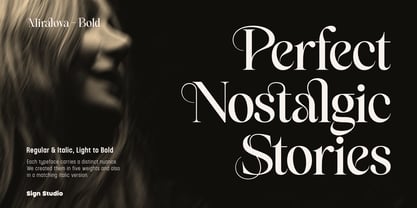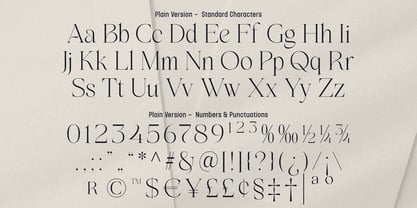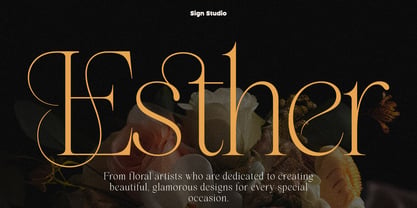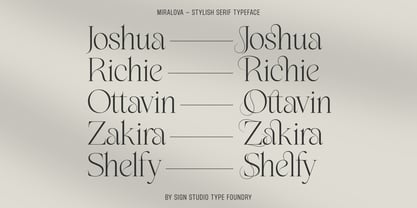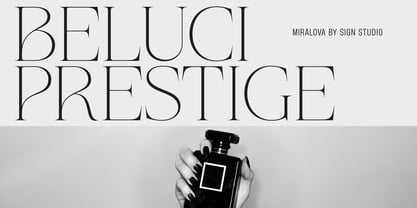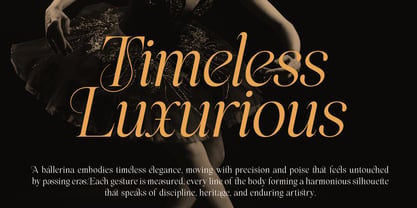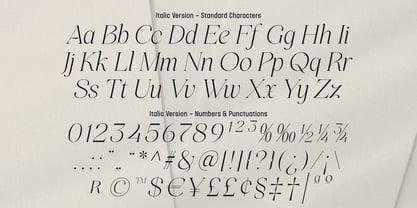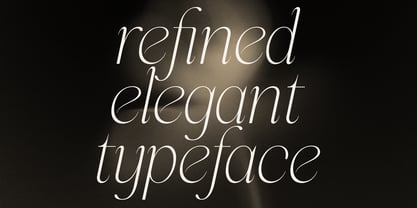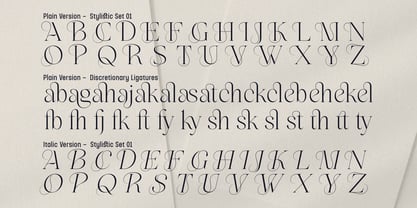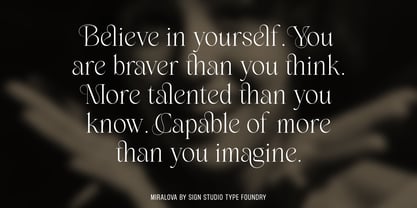
Miralova
by Sign Studio
The Miralova Font Family was designed by Sugi Yanto and published by Sign Studio. Miralova contains 10 styles and family package options. More about this family
Miralova – An Elegant Serif Typeface with Contemporary Authority Miralova is a sophisticated serif typeface that blends classical structure with modern clarity. Designed with balanced proportions and high-contrast strokes, it delivers a calm yet confident presence across both print and digital applications. Its carefully crafted true italic is developed independently, offering authentic movement and refined expression rather than a simple mechanical slant. This makes Miralova equally compelling for editorial layouts, branding systems, refined logos, and premium packaging. Available in five precisely crafted weights—from Light to Bold—Miralova functions as a cohesive typographic system. Each weight maintains structural consistency while providing enough distinction to establish hierarchy and rhythm within complex layouts. Miralova includes essential OpenType features to expand creative flexibility: • Standard Ligatures (liga) for selected lowercase combinations • Discretionary Ligatures (dlig) for selected lowercase combinations • Stylistic Set 01 (ss01) featuring alternate uppercase letterforms and a distinctive ampersand These features allow designers to move between restrained elegance and expressive character, enhancing both readability and visual identity. Supporting a wide range of Latin-based languages, Miralova is built for global communication. Whether used for extended text or commanding headlines, it delivers clarity, refinement, and timeless sophistication.
Designers: Sugi Yanto
Foundry: Sign Studio